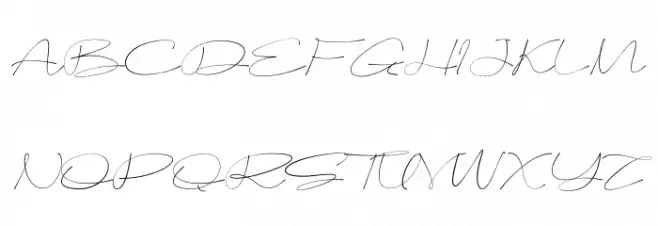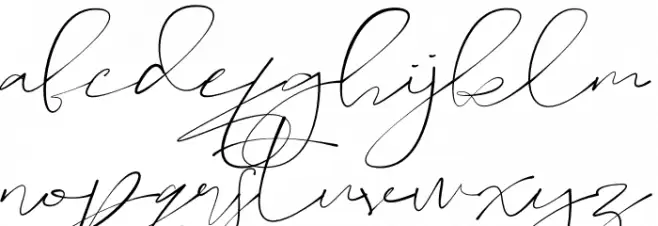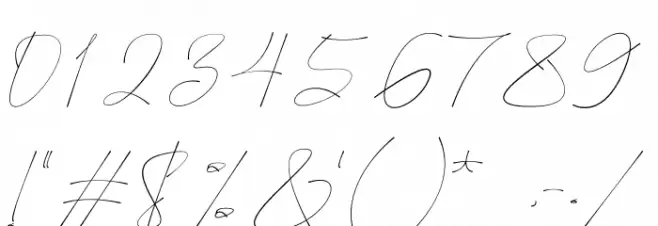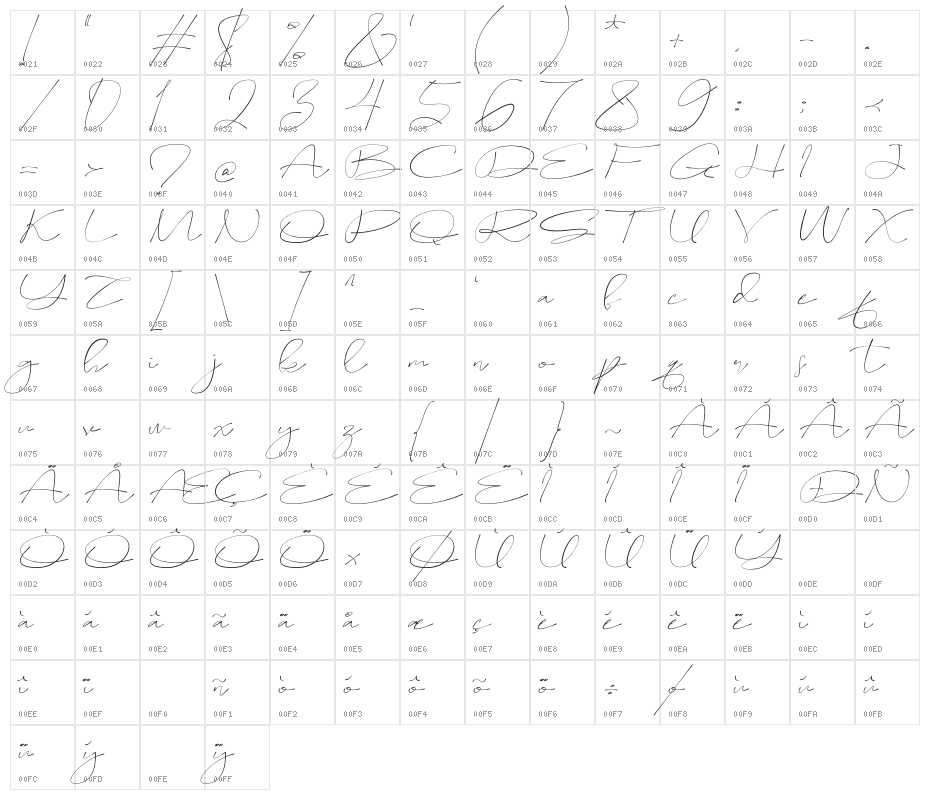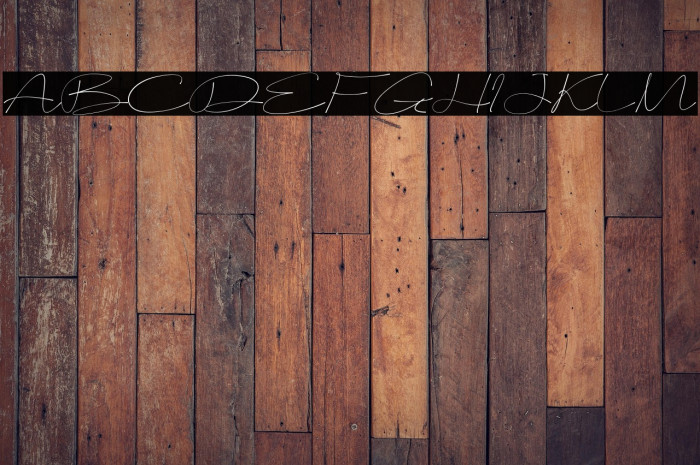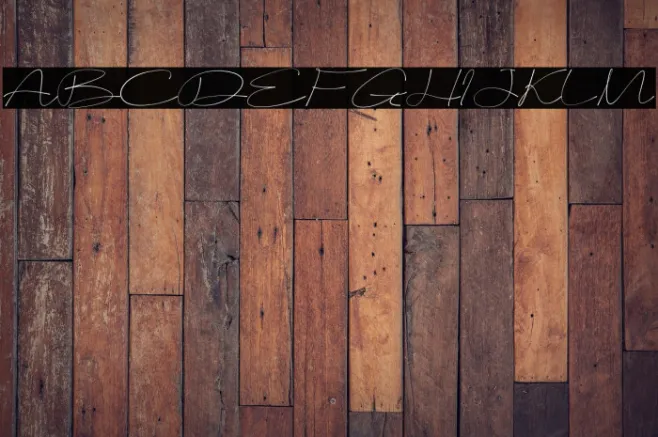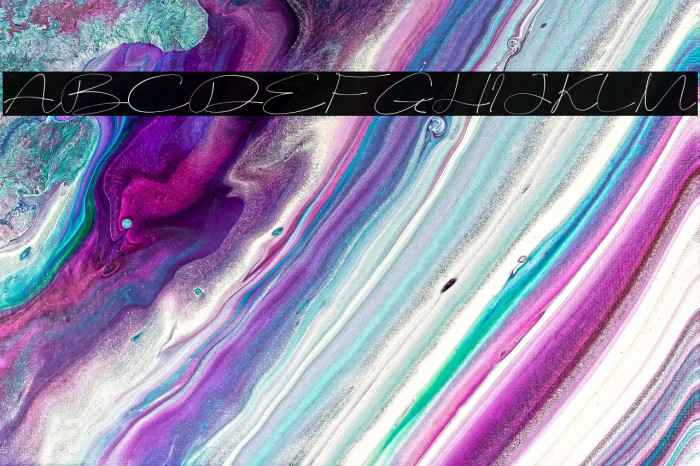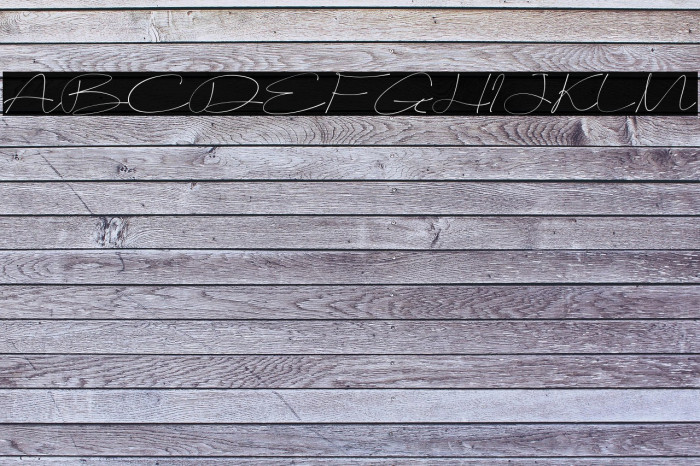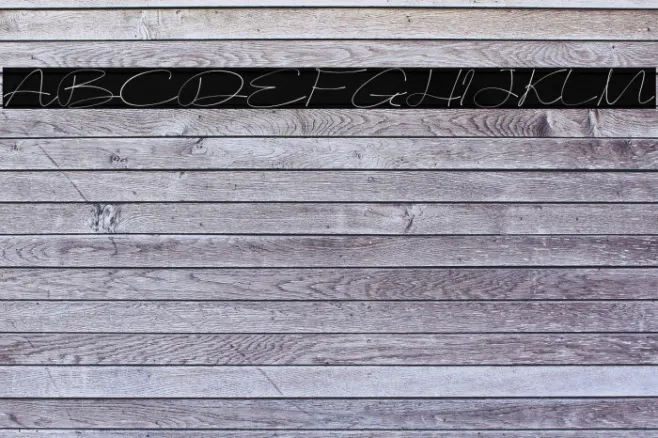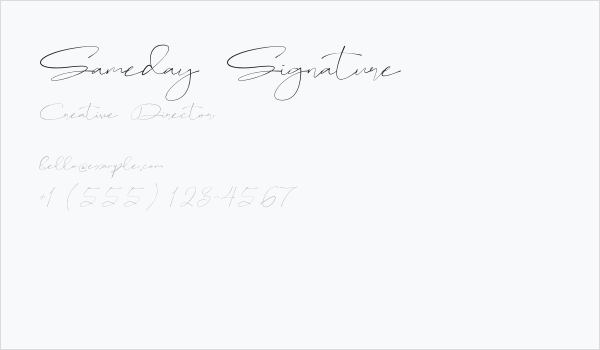
Sameday Signature
This elegant script font exudes a sense of fluidity and sophistication, characterized by its flowing, cursive strokes and delicate lines. The uppercase letters are slightly more restrained, maintaining a consistent height, while the lowercase letters exhibit graceful loops and swashes, adding a touch of flair. The numerals and special characters complement the alphabet with their cohesive style, ensuring a harmonious appearance across all text. The font's thin strokes and subtle variations in line thickness contribute to its refined and airy aesthetic, making it ideal for projects that require a personal, handwritten touch.
A graceful and fluid script font with elegant cursive strokes.
- Proposed Projects: Ideal for wedding invitations, personal branding, elegant stationery, and signature logos.
- Category: Script
- Weight: Light
- Overall Style: Elegant, Handwritten
- Use Case: Logos, Invitations, Personal Branding